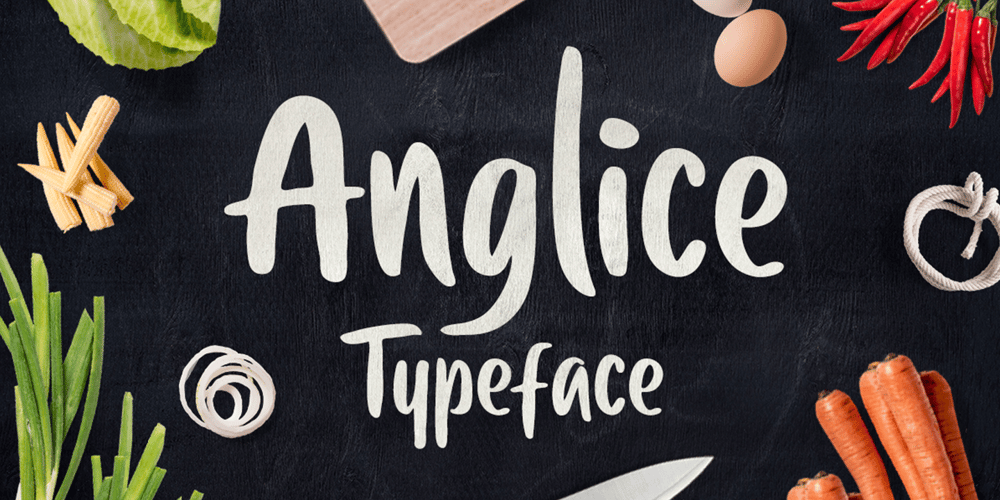
Anglice Font Family was designed by Hendry Juanda and published by Letterhend. Anglice contains 1 styles and family package options. Anglice is a delicious handwritten font that will make your design more natural. You can use this font for making a quotes, menu, and many things. This font also support multi language with full of punctuation!